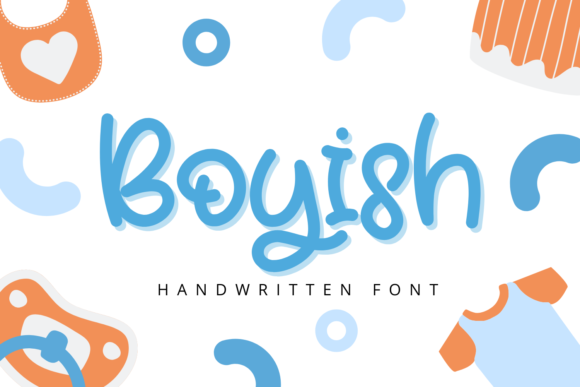
The Joy of Boyish Font: A Designer’s New Best Friend
I still remember the time I was working on a children’s book project, and I just couldn’t find the right font to match the playful and whimsical illustrations. The client wanted something fun, yet legible, and I was on a mission to deliver. That’s when I stumbled upon Boyish Font, a fun and quirky handwritten font that instantly captured the essence of the project. In this article, I’ll share my experience with Boyish Font, its features, and how to make the most of it in your designs.
An Honest Review of Boyish Font
What I Love About Boyish Font
- ✨ Playful and Whimsical: Boyish Font is perfect for children’s themed designs, with its bouncy and irregular letterforms that evoke a sense of fun and playfulness.
- ✅ Legible and Readable: Despite its quirky nature, Boyish Font is surprisingly legible, making it suitable for body text and headings.
- 💡 Versatile: Boyish Font can be used for a wide range of design projects, from children’s books and educational materials to posters and social media graphics.
While Boyish Font is an excellent choice for many projects, there are a few things to keep in mind:
- 🤔 Limited Formality: Boyish Font is not suitable for formal or professional designs, as its playful nature may not be taken seriously.
- ⚠️ Glyph Limitations: Boyish Font may not have an extensive range of glyphs or special characters, which could limit its use in certain projects.
The Backstory of Boyish Font
Boyish Font was designed by a talented type designer who’s passionate about creating fun and playful fonts for creative projects. Inspired by the joy of childhood and the beauty of handwritten letters, Boyish Font was crafted to bring a smile to your face and a touch of whimsy to your designs.
| Font Name | Boyish Font |
| Author | Al Ghul |
A: Absolutely! Boyish Font can be used for both print and digital projects, from children’s books to social media graphics.
A: Currently, Boyish Font is available in a single weight, but you can experiment with different font sizes and colors to achieve different effects.